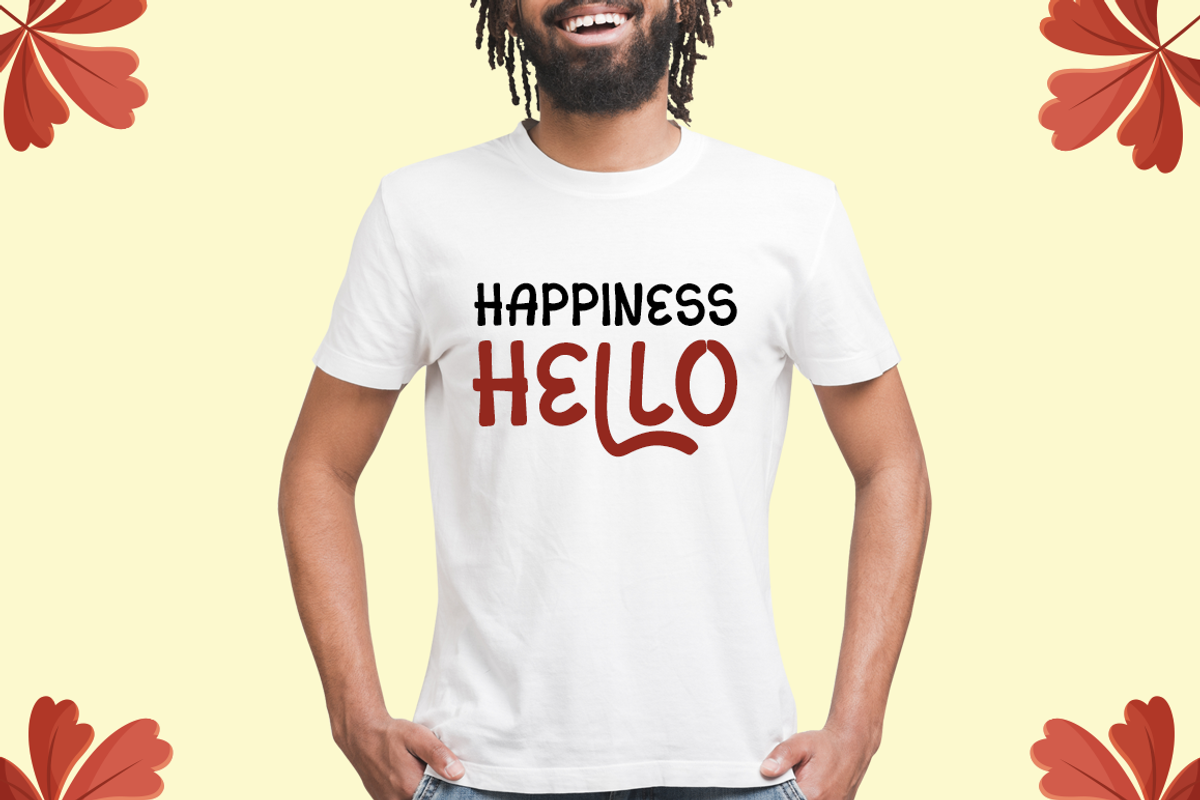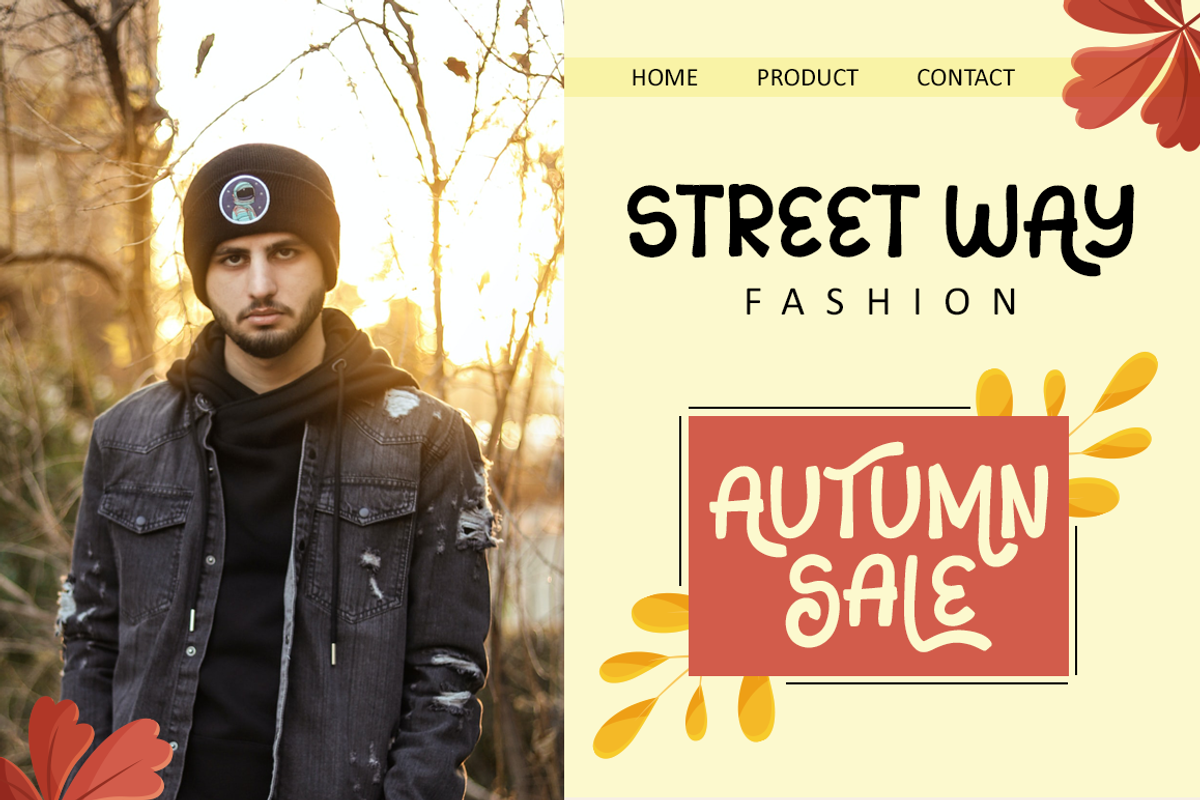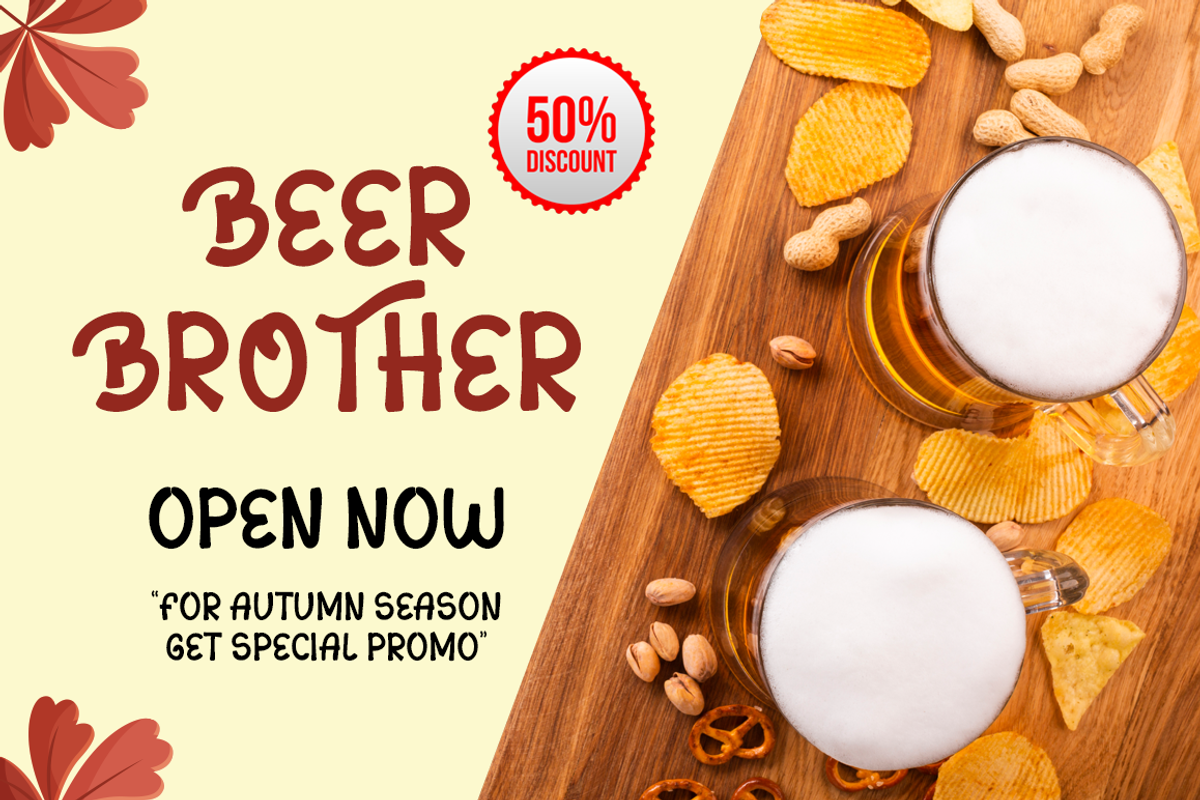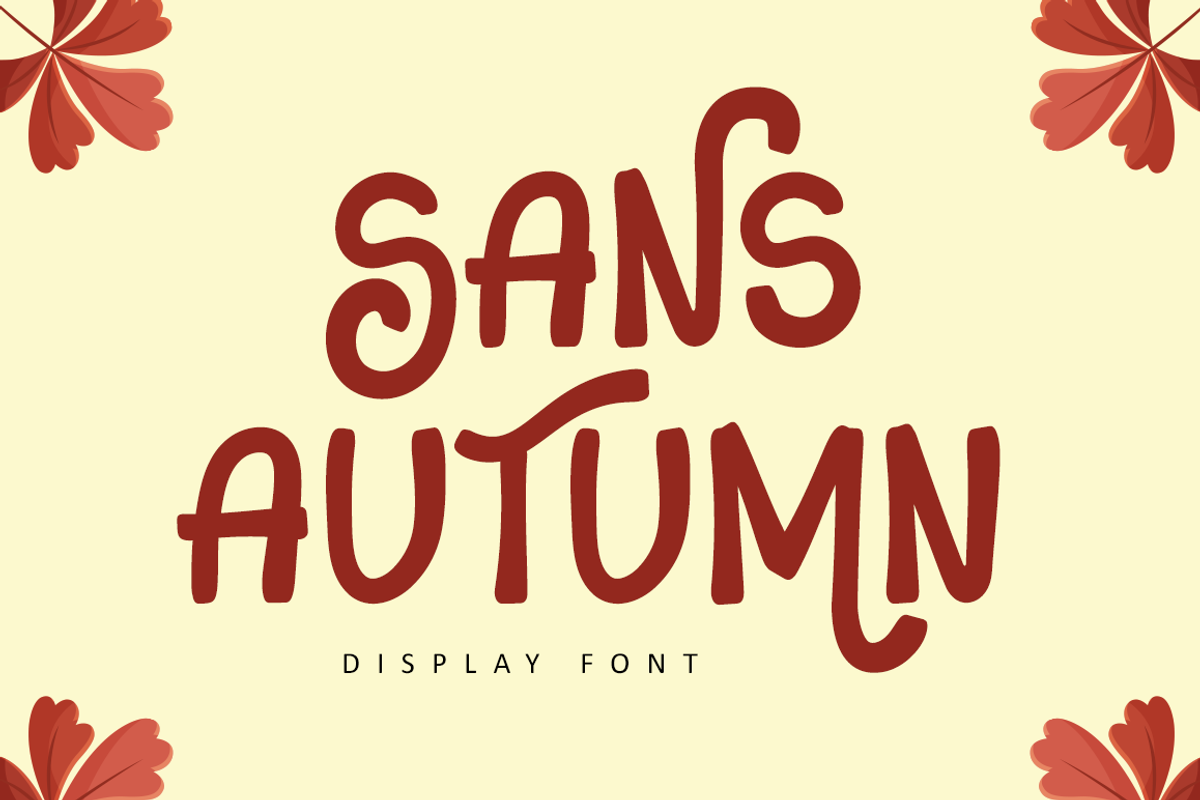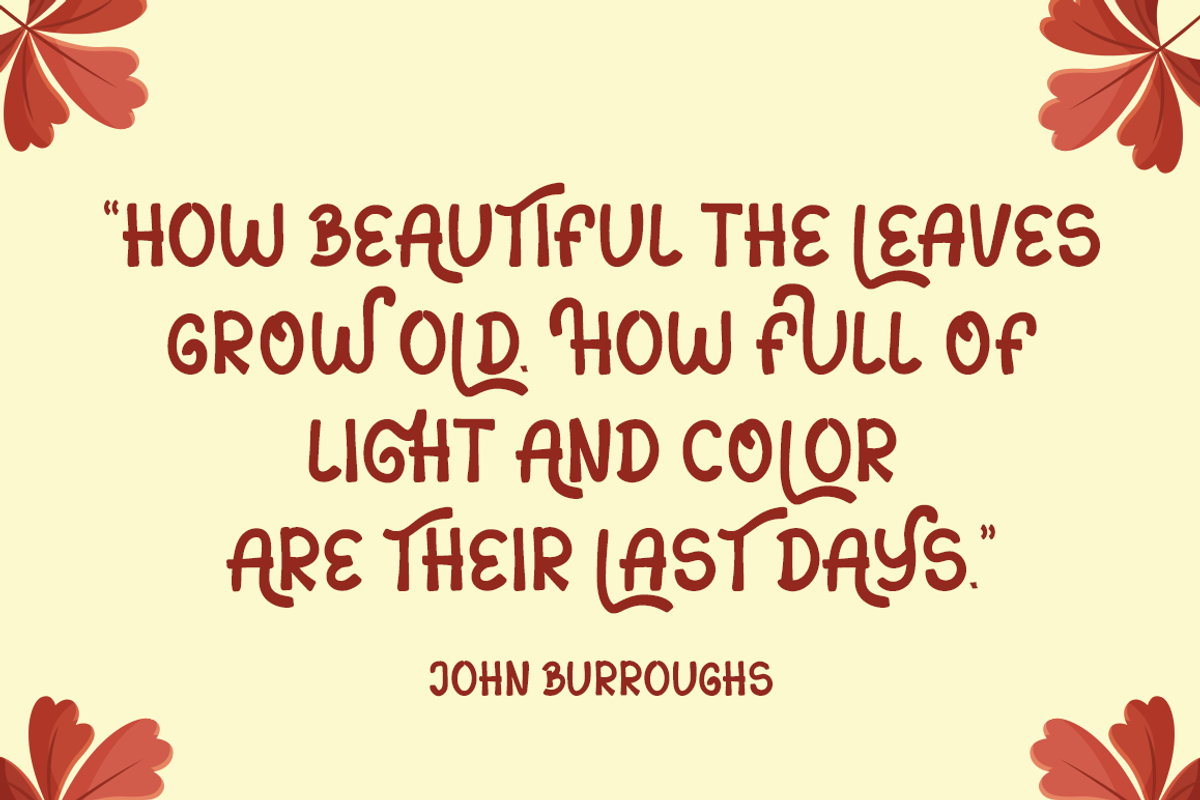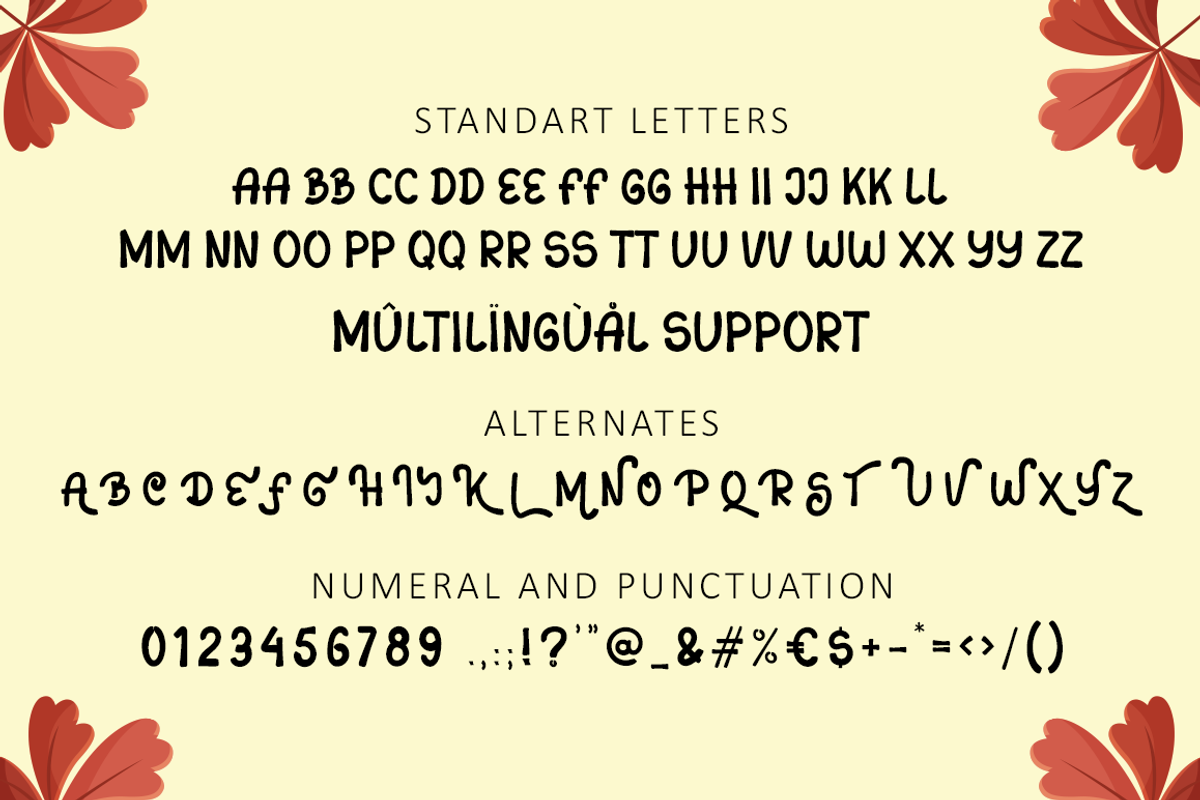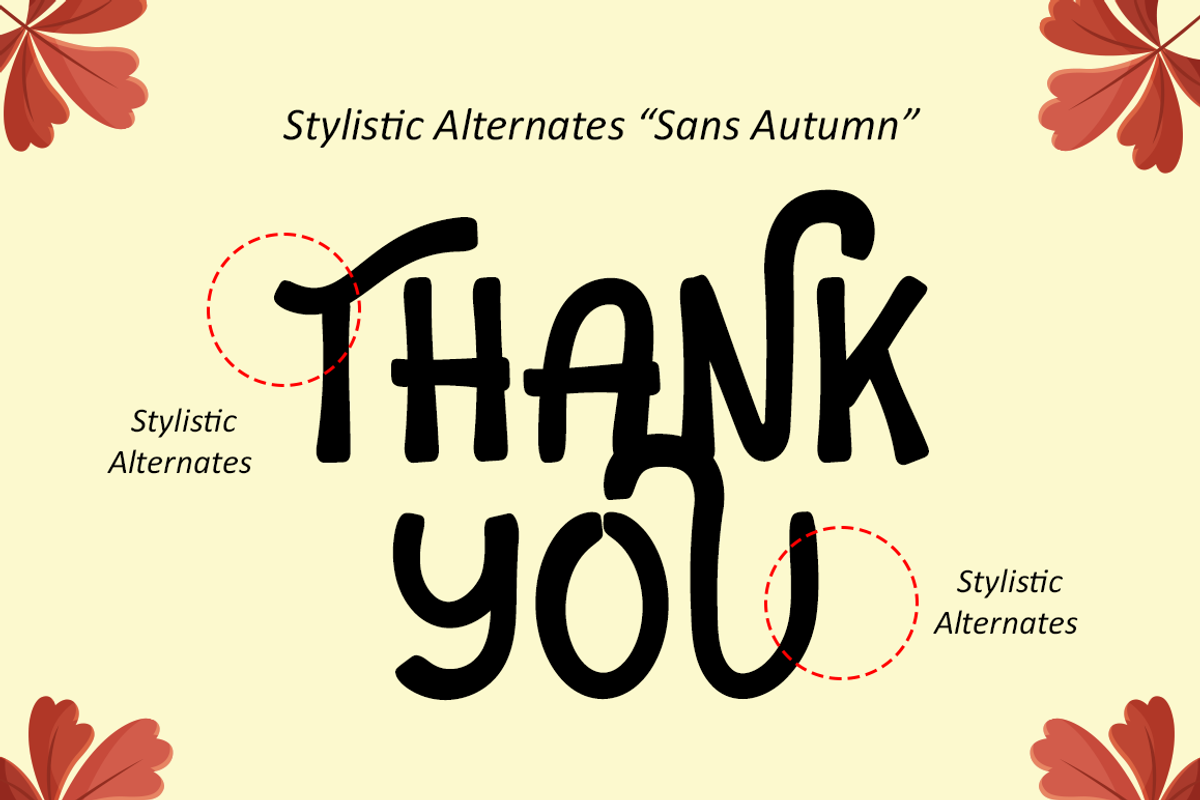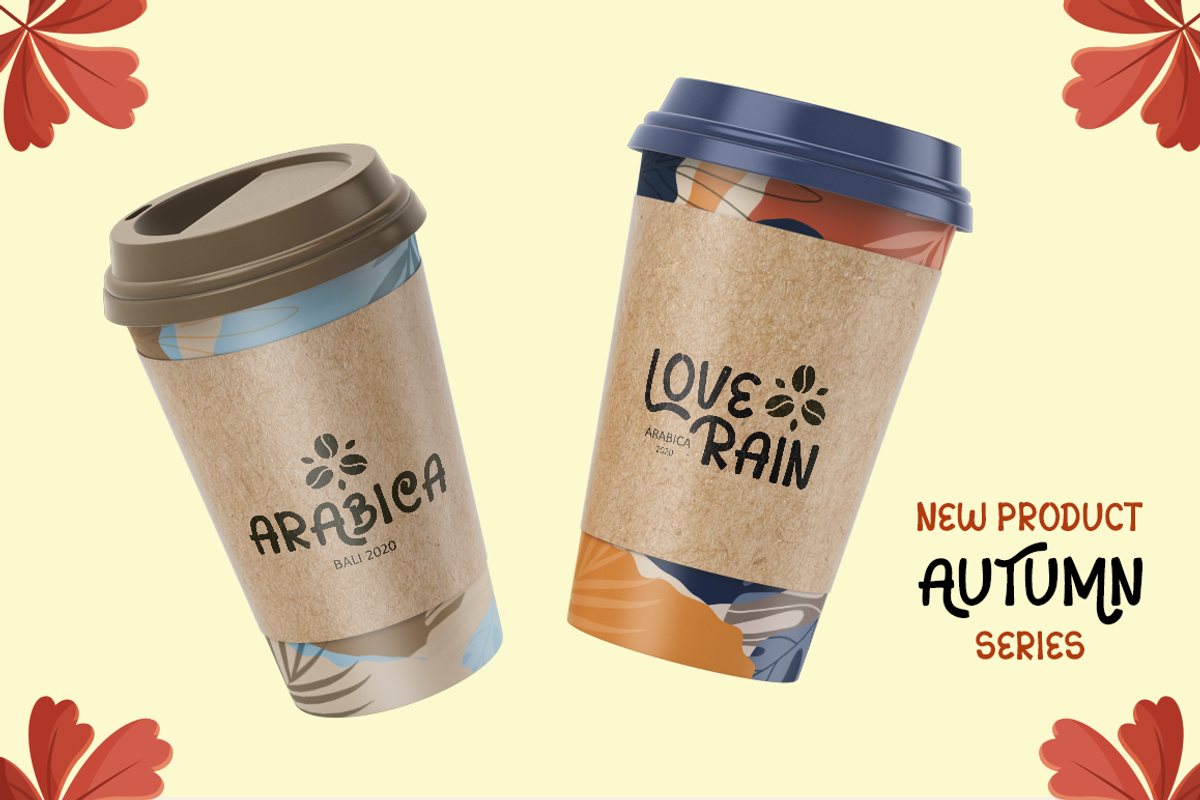
Sans Autumn - Display Font
Hello, Sans Autumn is a cute and friendly display font.. This enchanting display font will turn any creative ideas into a true standout. Get creative with its unique playfulness, and use it to brighten up any crafting project such as quotes, product promotion, website, logotype, merchandise and more.
Features : Uppercase and lowercase Numbers Symbols Multilingual Accent Ligatures Alternates